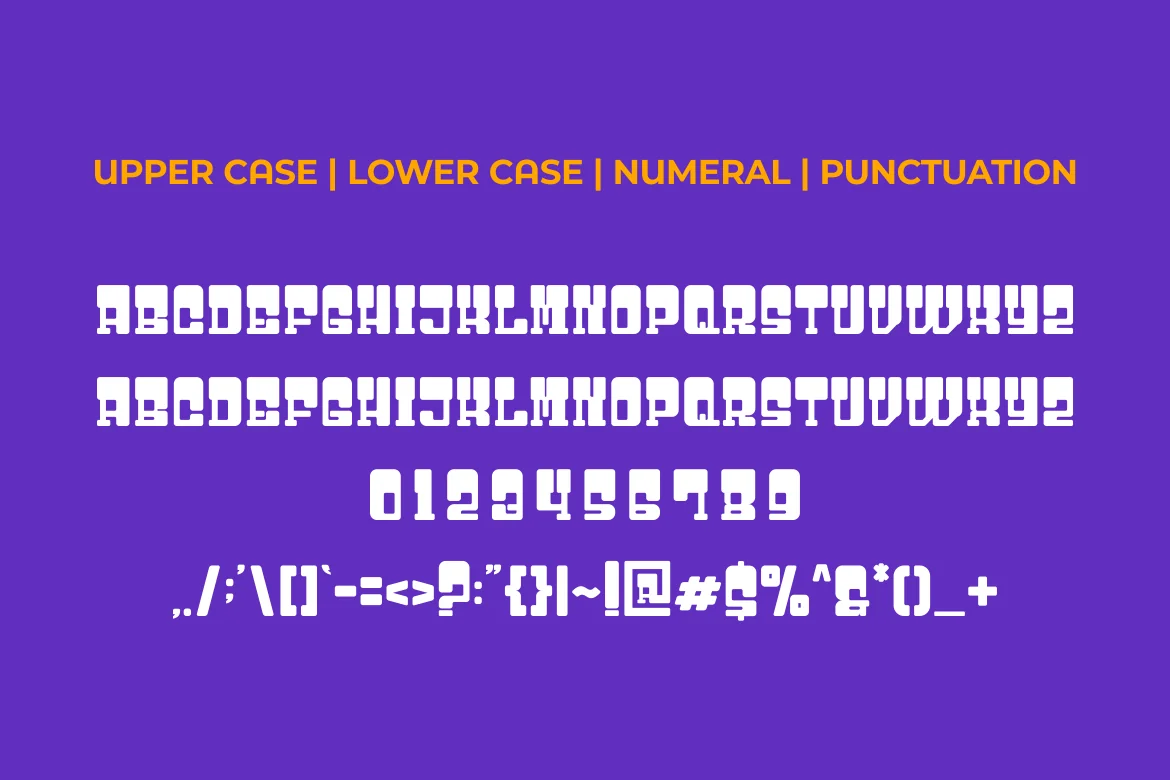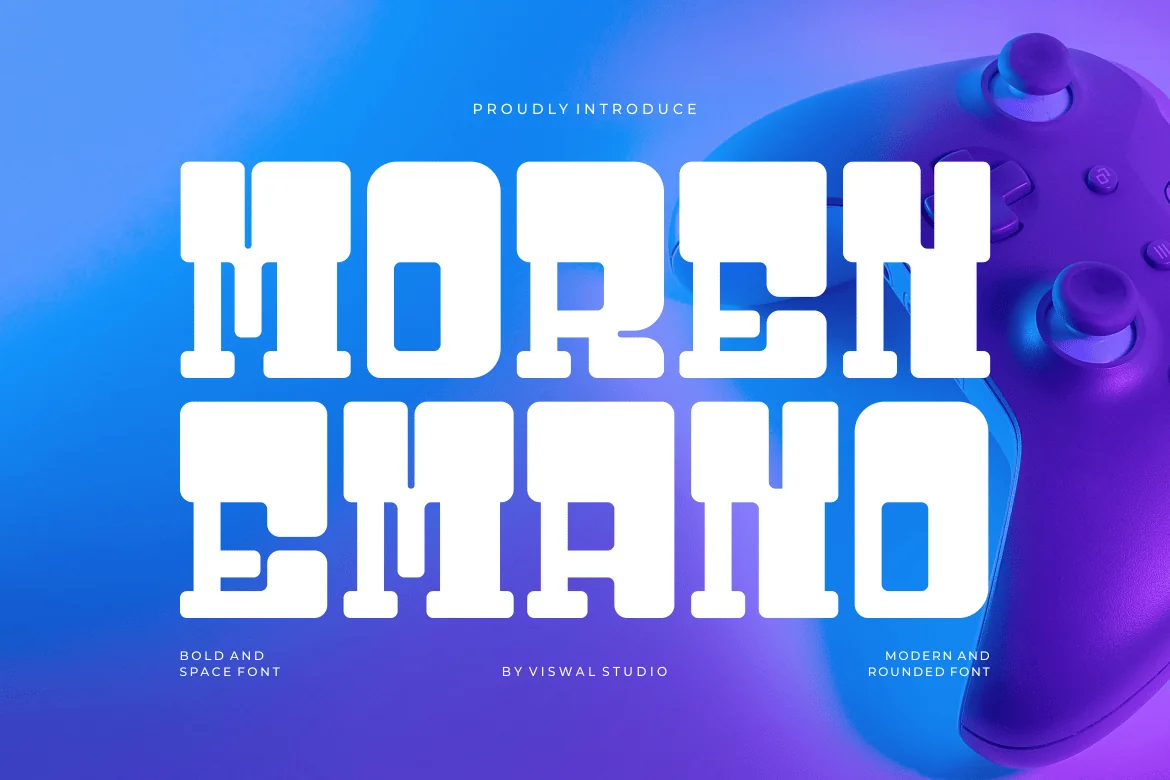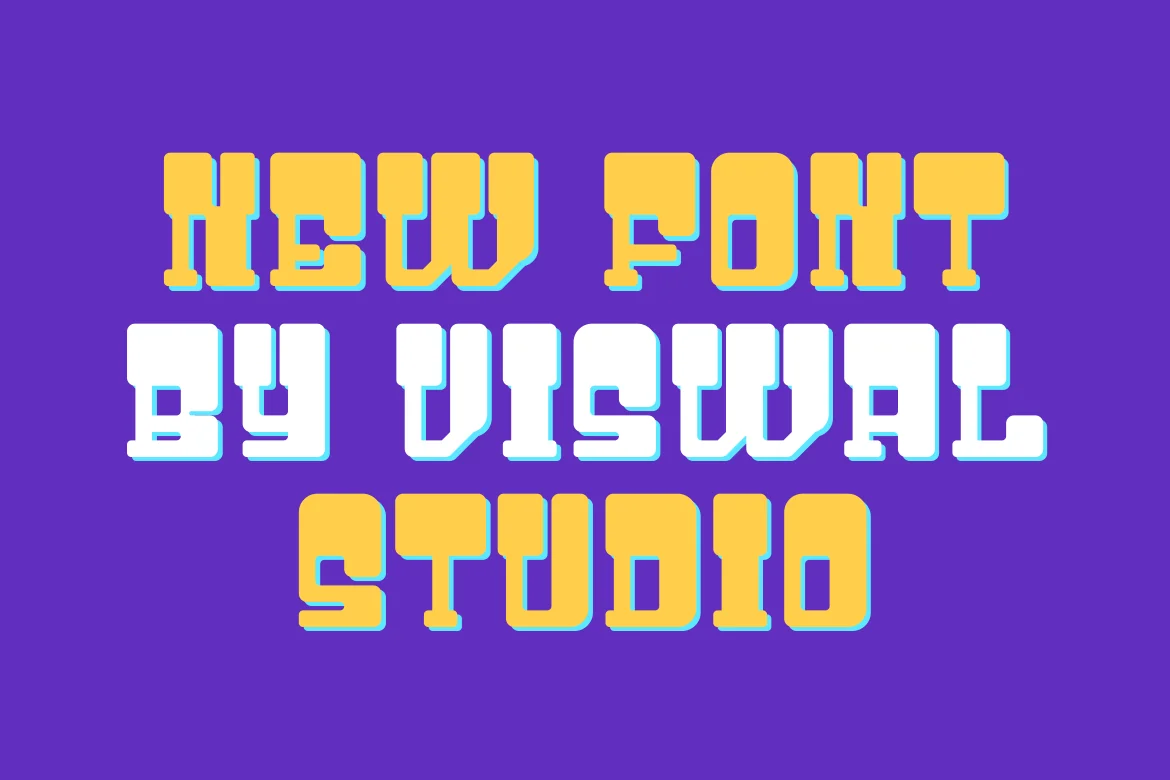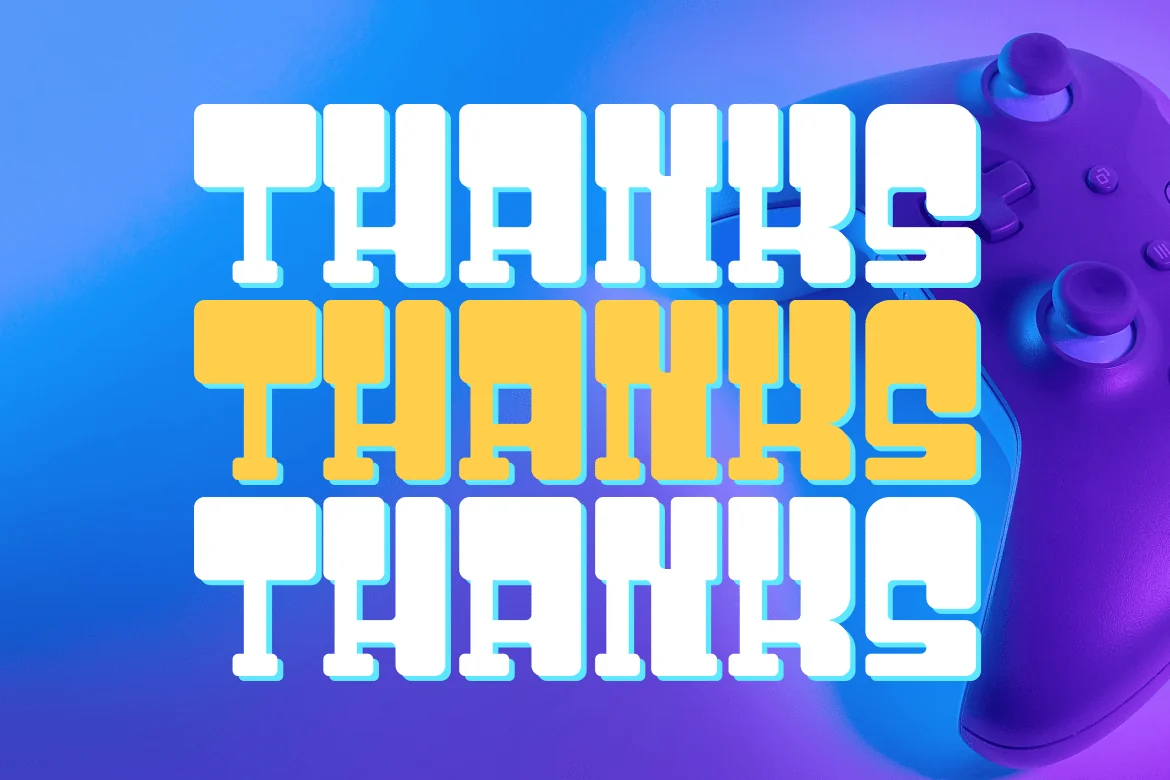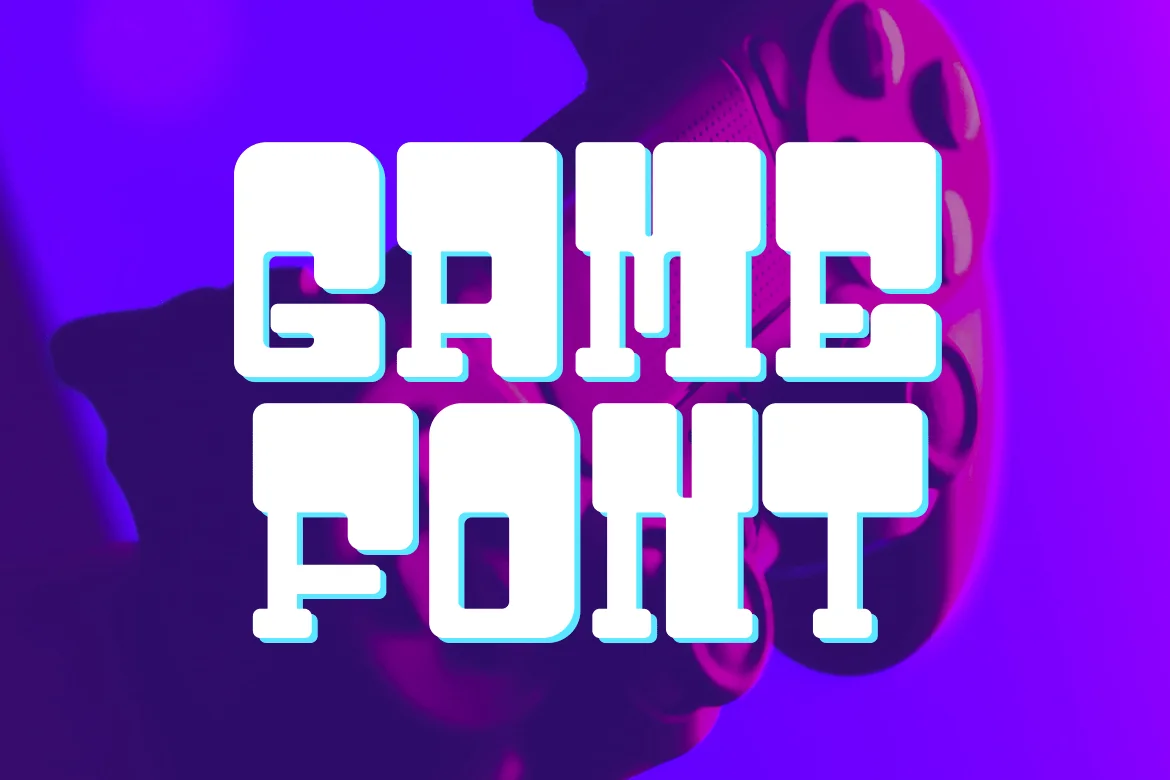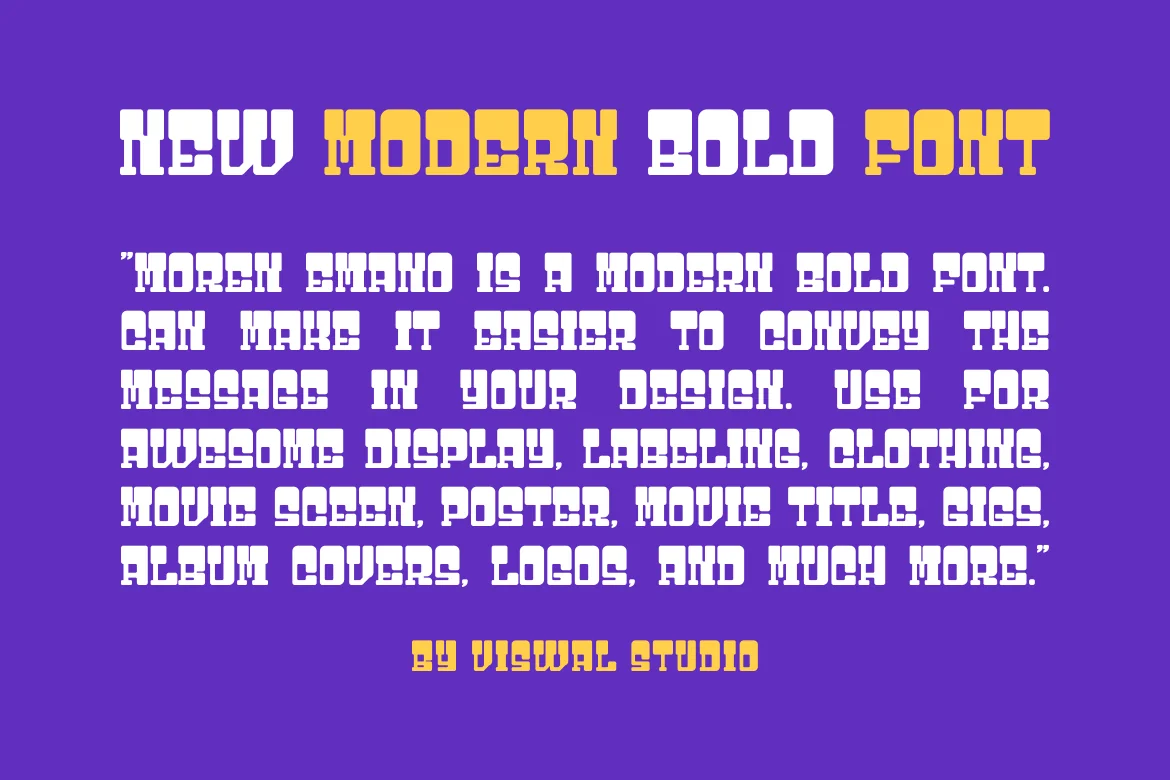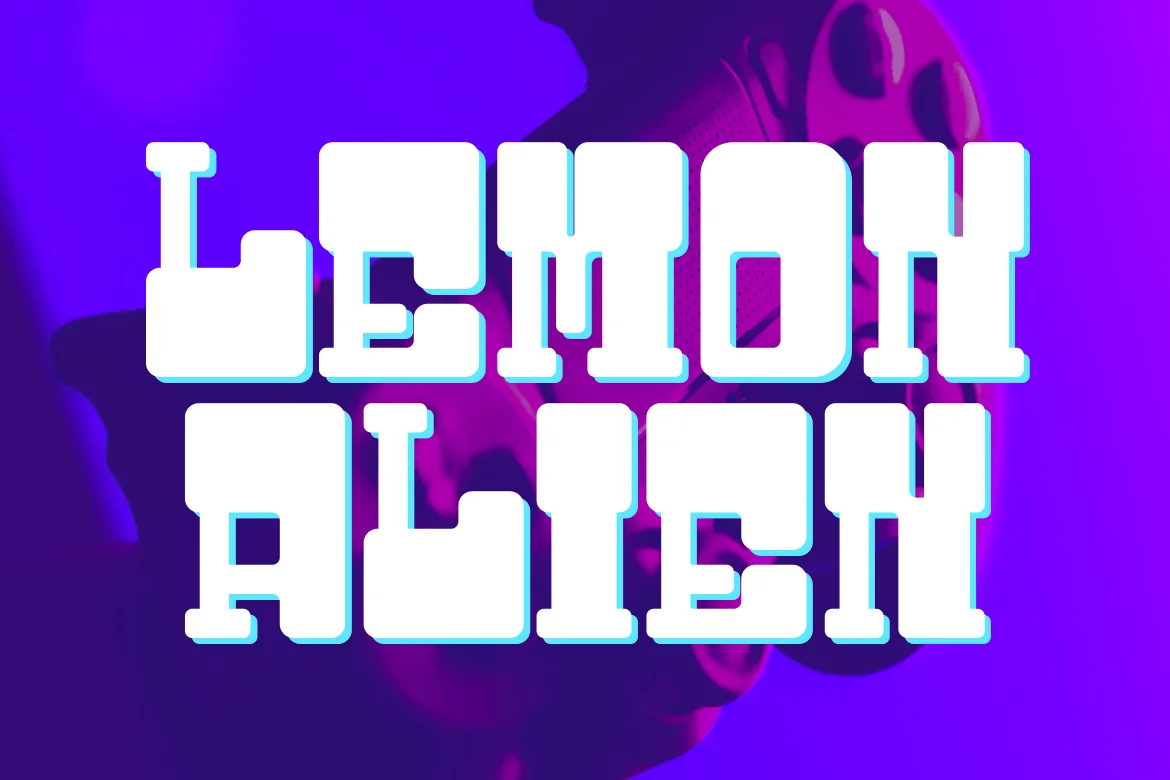
Moren Emano – Game & Space Font
Presenting Moren Emano – Font is suitable for badge, labels, logo, branding, magazine, poster and etc. Our fonts have Uppercase & Lowercase, Numeral & Punctuation, Multilingual support and Opentype Features. For Amazing designs you can mix with other fonts as a complement.